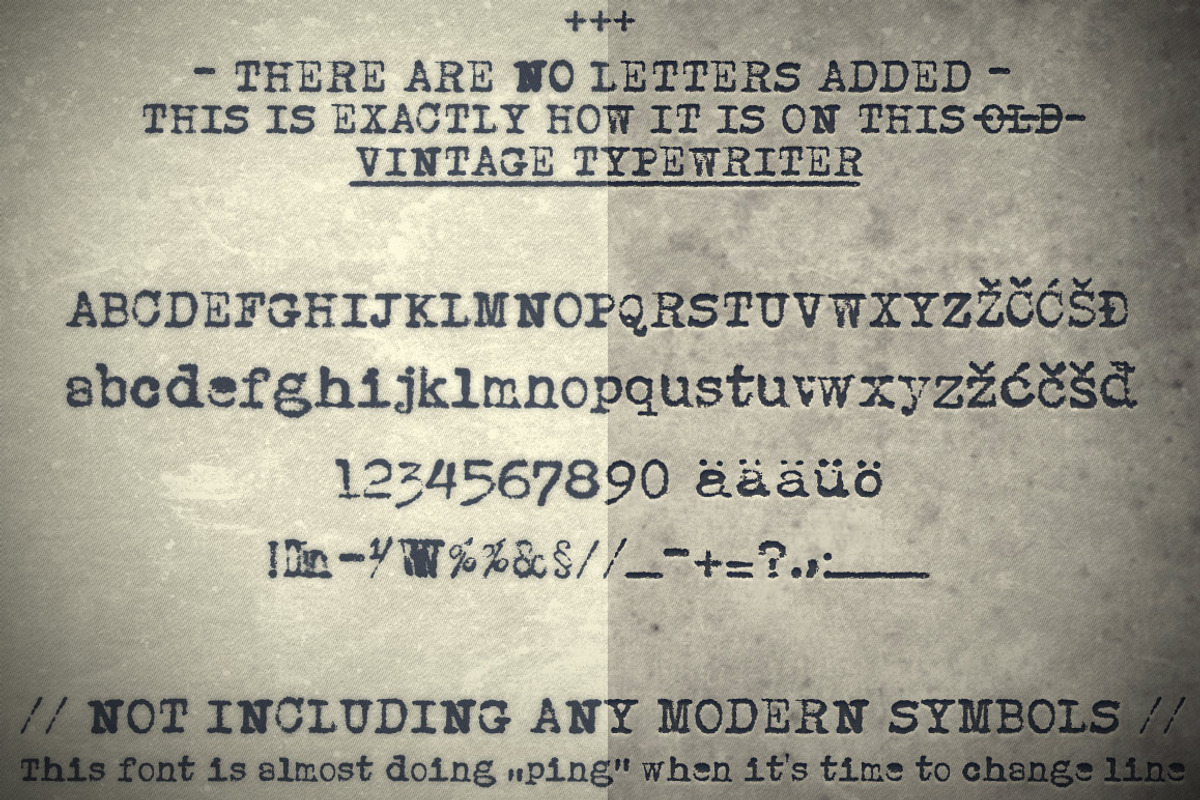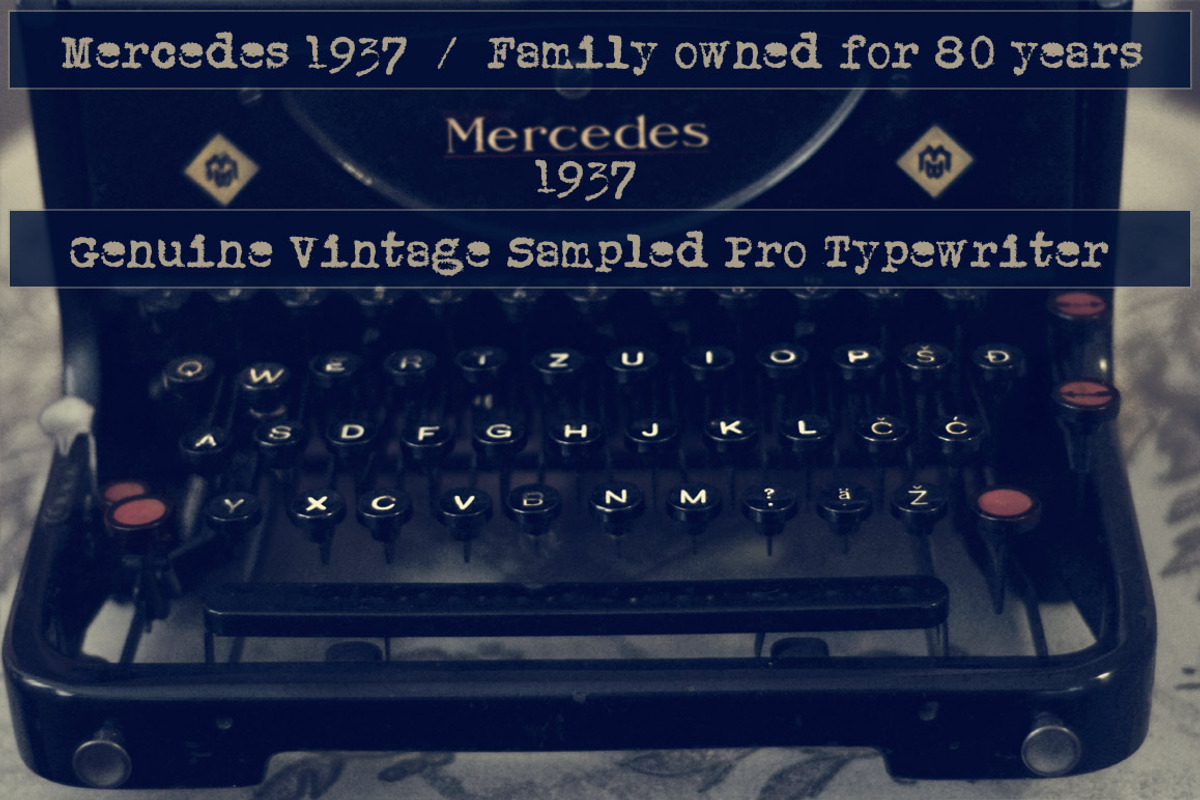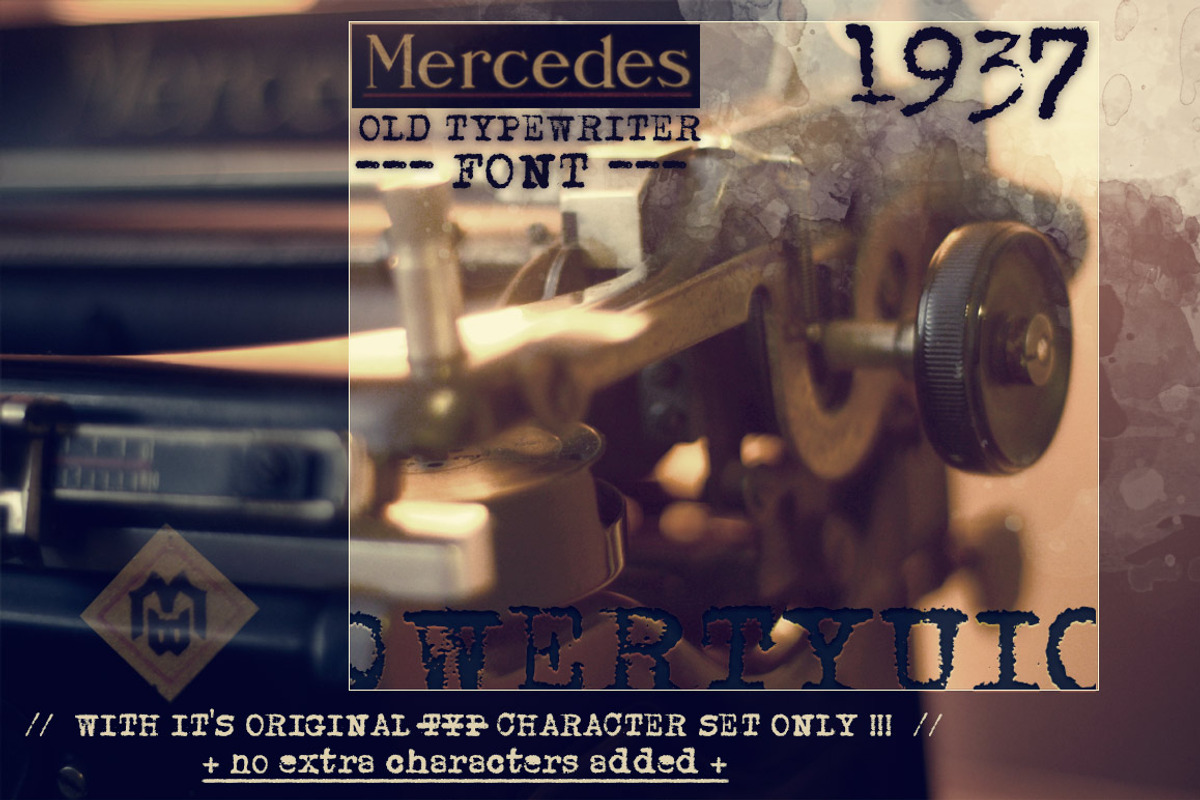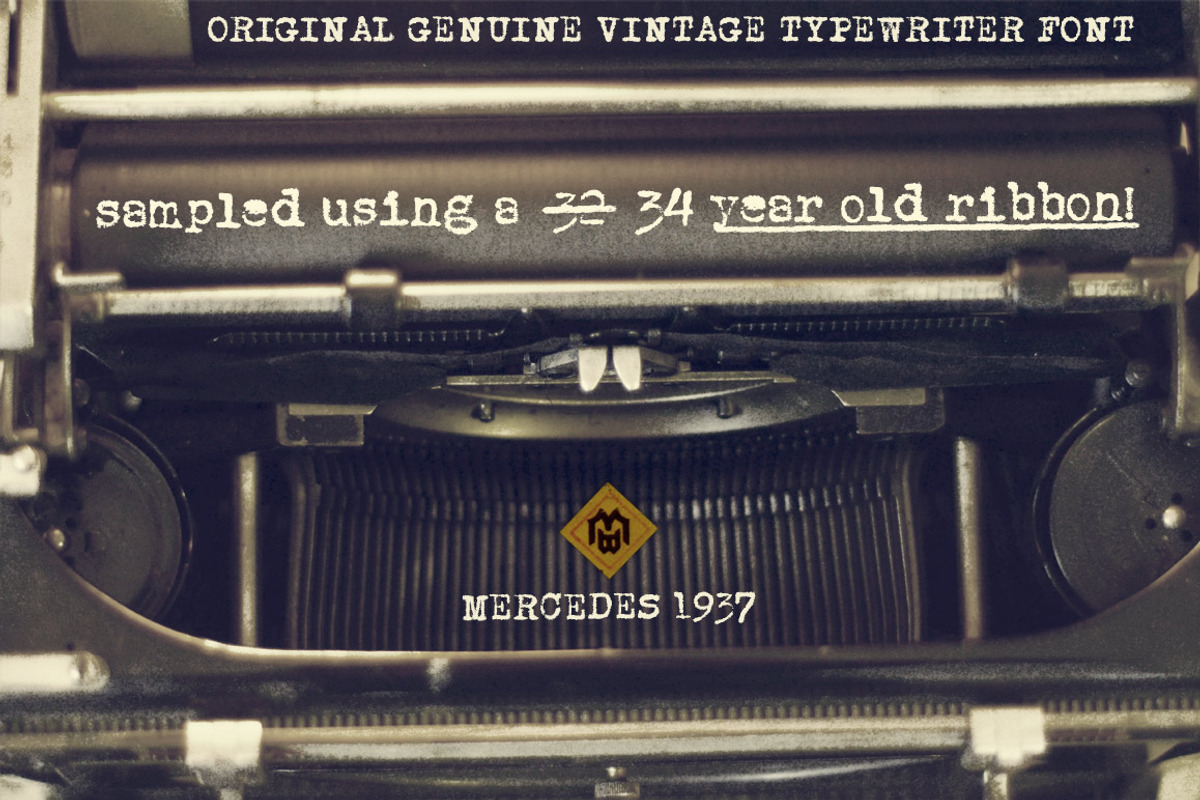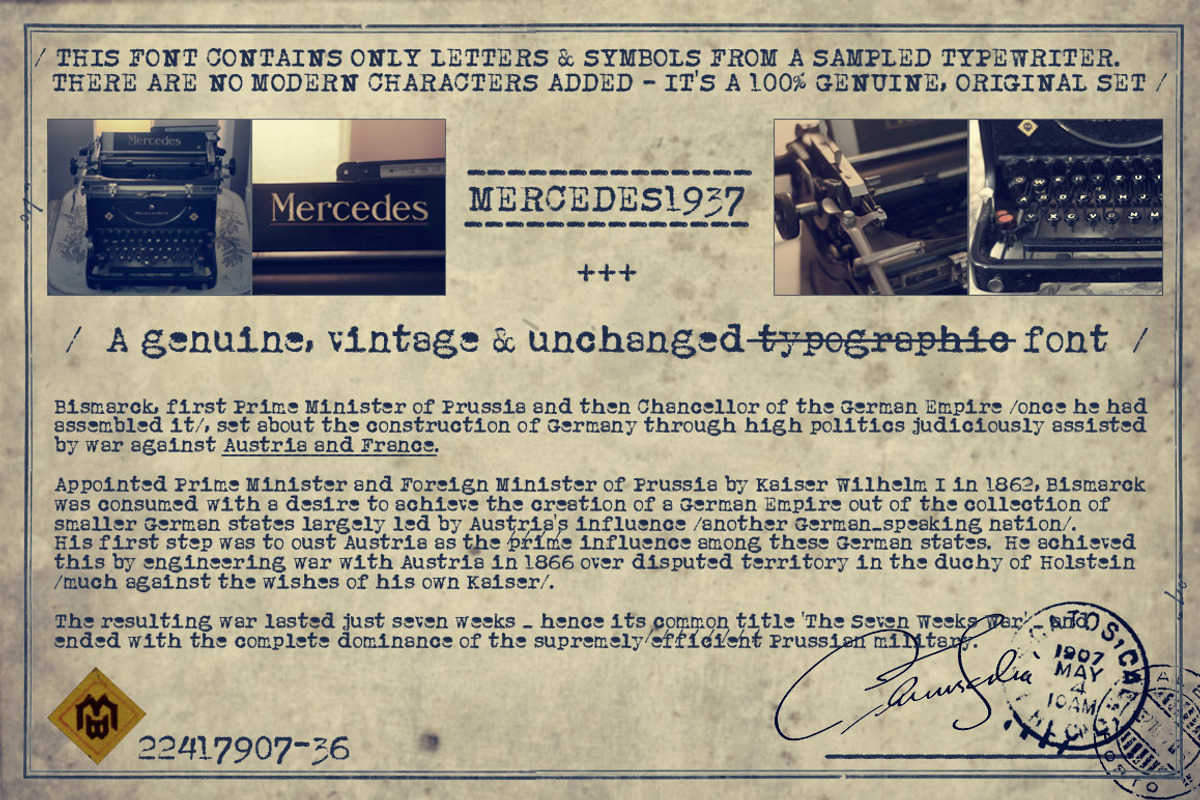
Mercedes1937 - Old Typewriter Font
- One more important thing - I have used ONLY it’s original set of characters (Latin with some Balkan-based letters).
- There are no compromises here - there are no popular @,#,$ and other characters you would expect in a font.